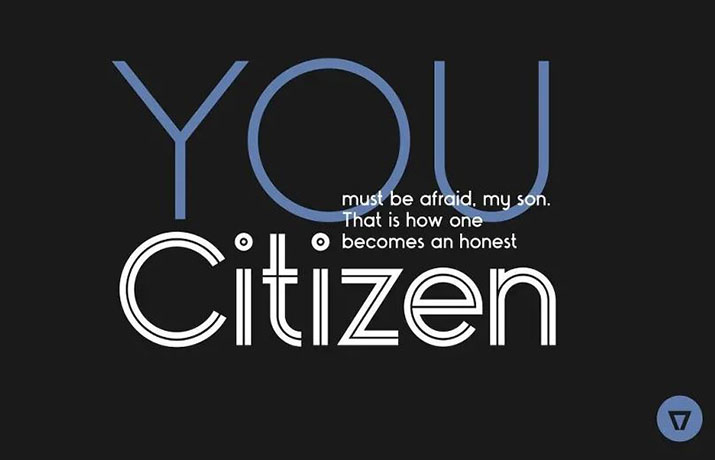
Monopoly Sans Font is a modern monolinear sans serif typeface has clean, professional, and visually appealing. It was designed and published by NimaVisual.
This font family, which is in TTF format, comes in three weights: regular, bold, and inline. It includes 205 glyphs and 2432 binary stored kerning pairs and supports 68 languages.
The first way is to maintain the overall texture like clean font which we have seen in sans serif fonts. The second way is that he adds rounded curves, making it stylish and unique.
It is a versatile typeface that can be used in a variety of presentations, headlines, branding, posters, banners, and social media, either in the body copy or in titles and subheadings.
Features of This Font:
- Uppercase & lowercase letters, numbers, symbols, and punctuation
- 205 glyphs and 2432 binary stored kerning pairs
- 68 multilingual languages support
Monopoly Sans Font (Details)
| Font Name: | Monopoly Sans Font Family |
| Style: | Sans Serif, Monoline, Display |
| Font Designer: | NimaVisual |
- This typeface can be used in many different contexts due to its sleek and contemporary look. Some examples of these contexts include headlines, brochures, flyers, quote sites, product design, book covers, paragraphs, coding, mobile applications, business cards, special event cards, product packaging, advertisements, images, titles, thumbnails, symbols, and text are included.